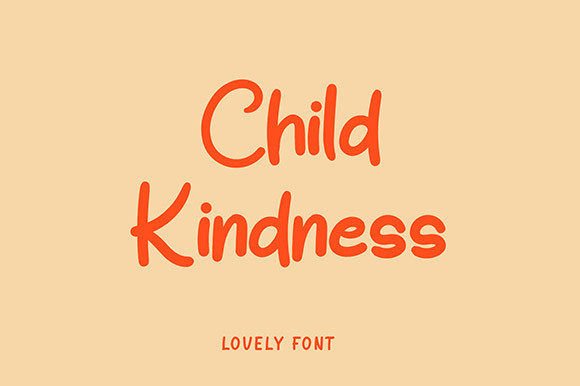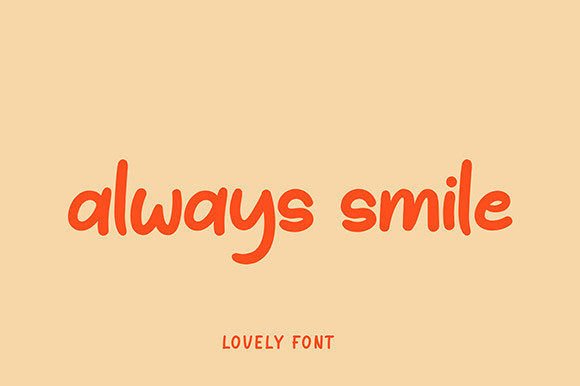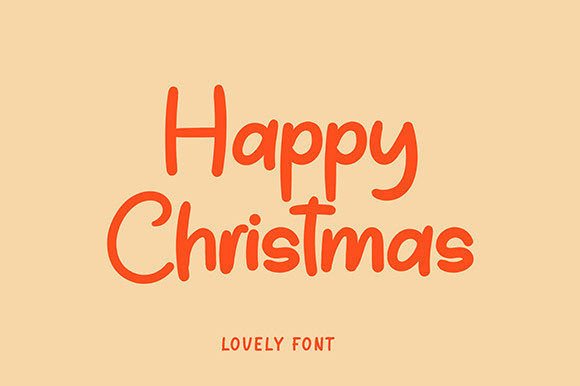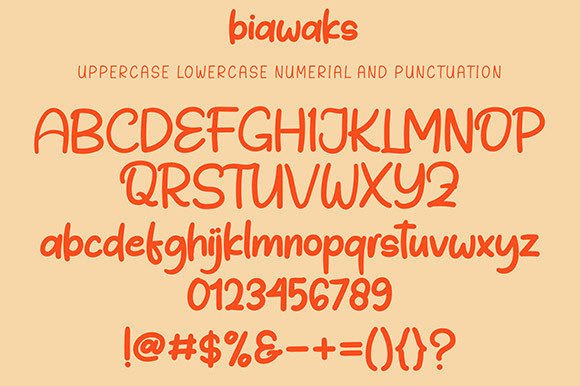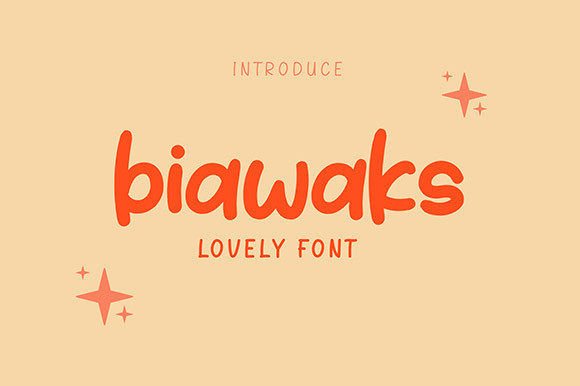
Biawaks Font: The Perfect Choice for Creative Projects
Are you a designer or crafter looking for a unique and versatile font to elevate your projects? Look no further than Biawaks Font! This stylish and modern font is suitable for a wide range of applications, from quotes and logos to blog headers, posters, and more. In this article, we’ll explore the features and benefits of Biawaks Font, and why it’s the perfect choice for your next creative project.
What is Biawaks Font?
Biawaks Font is a modern and elegant font designed to add a touch of sophistication to your projects. Its unique and stylish design makes it perfect for a variety of applications, from digital to print. The font is highly legible and easy to read, making it suitable for use in body text, headings, and titles.
Features of Biawaks Font
Biawaks Font comes with a range of features that make it an ideal choice for designers and crafters. Some of its key features include:
• Unique and Stylish Design: Biawaks Font has a distinctive and modern design that sets it apart from other fonts.
• Highly Legible: The font is highly legible and easy to read, making it suitable for use in body text, headings, and titles.
• Versatile: Biawaks Font is suitable for a wide range of applications, from digital to print.
• Easily Customizable: The font can be easily customized to fit your project’s specific needs.
Use Cases for Biawaks Font
Biawaks Font is suitable for a wide range of projects, including:
• Quotes: Add a touch of elegance to your quotes with Biawaks Font.
• Logos: Create a professional and stylish logo with Biawaks Font.
• Blog Headers: Elevate your blog headers with Biawaks Font’s modern and elegant design.
• Posters: Create eye-catching posters with Biawaks Font.
• Ribbons: Add a touch of sophistication to your ribbons with Biawaks Font.
• Fashion and Clothing: Use Biawaks Font to create stylish and modern fashion and clothing designs.
• Letters and Invitations: Create beautiful and elegant letters and invitations with Biawaks Font.
• Stationery: Elevate your stationery designs with Biawaks Font’s unique and stylish design.
Benefits of Using Biawaks Font
Using Biawaks Font in your projects comes with a range of benefits, including:
• Improved Readability: Biawaks Font is highly legible and easy to read, making it perfect for use in body text, headings, and titles.
• Increased Versatility: Biawaks Font is suitable for a wide range of applications, from digital to print.
• Enhanced Creativity: Biawaks Font’s unique and stylish design can help to elevate your creative projects and set them apart from others.
• Time-Saving: Biawaks Font is easily customizable, saving you time and effort in your design process.
Font Name Biawaks Font
Author chatype studio
In conclusion, Biawaks Font is a versatile and stylish font that is perfect for a wide range of creative projects. Its unique and modern design, high legibility, and ease of customization make it an ideal choice for designers and crafters. Whether you’re creating quotes, logos, blog headers, posters, or more, Biawaks Font is sure to elevate your designs and help you achieve professional-looking results.